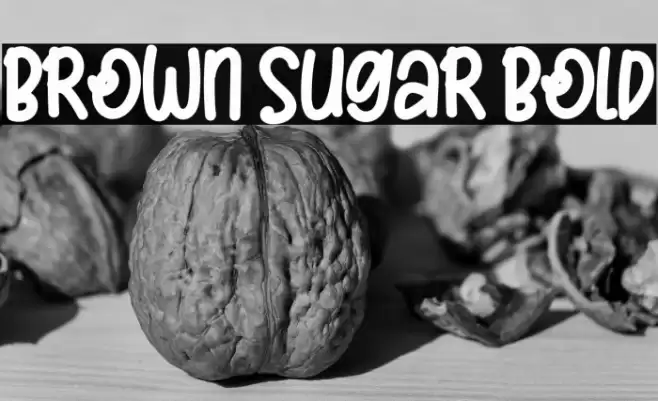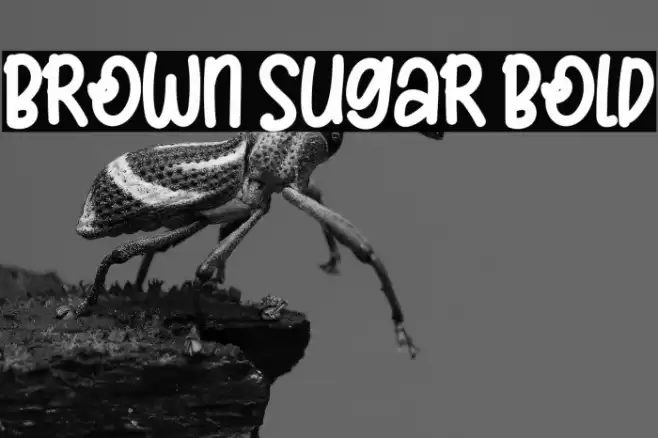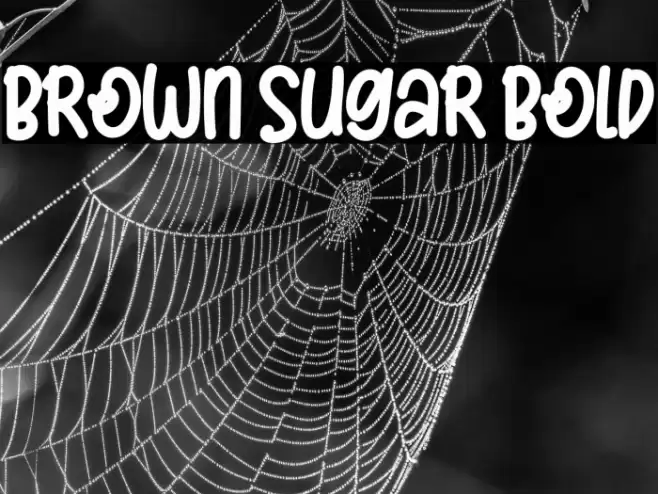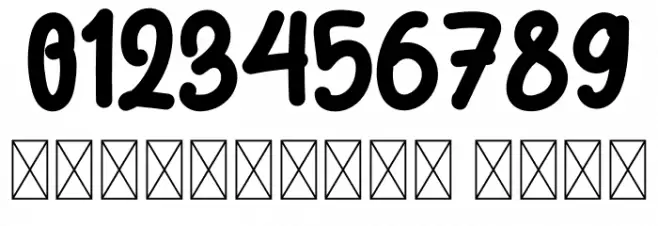
Brown Sugar Bold Font
Brown Sugar Bold Description
This font features a bold, playful style with a handwritten appearance. The characters are rounded and have a smooth, flowing quality that gives them a friendly and approachable look. The uppercase and lowercase letters maintain a consistent weight, contributing to a cohesive visual aesthetic. The numbers are equally bold and rounded, matching the overall style of the alphabet. This font is particularly suitable for projects that require a casual and informal tone, such as children's books, greeting cards, and playful branding materials.
A bold, playful handwritten font with rounded characters from Regular fonts.
- Proposed Projects: Ideal for children's books, greeting cards, playful branding, and informal designs.
- Overall Style: Playful
- Use Case: Headlines, Logos, Informal text